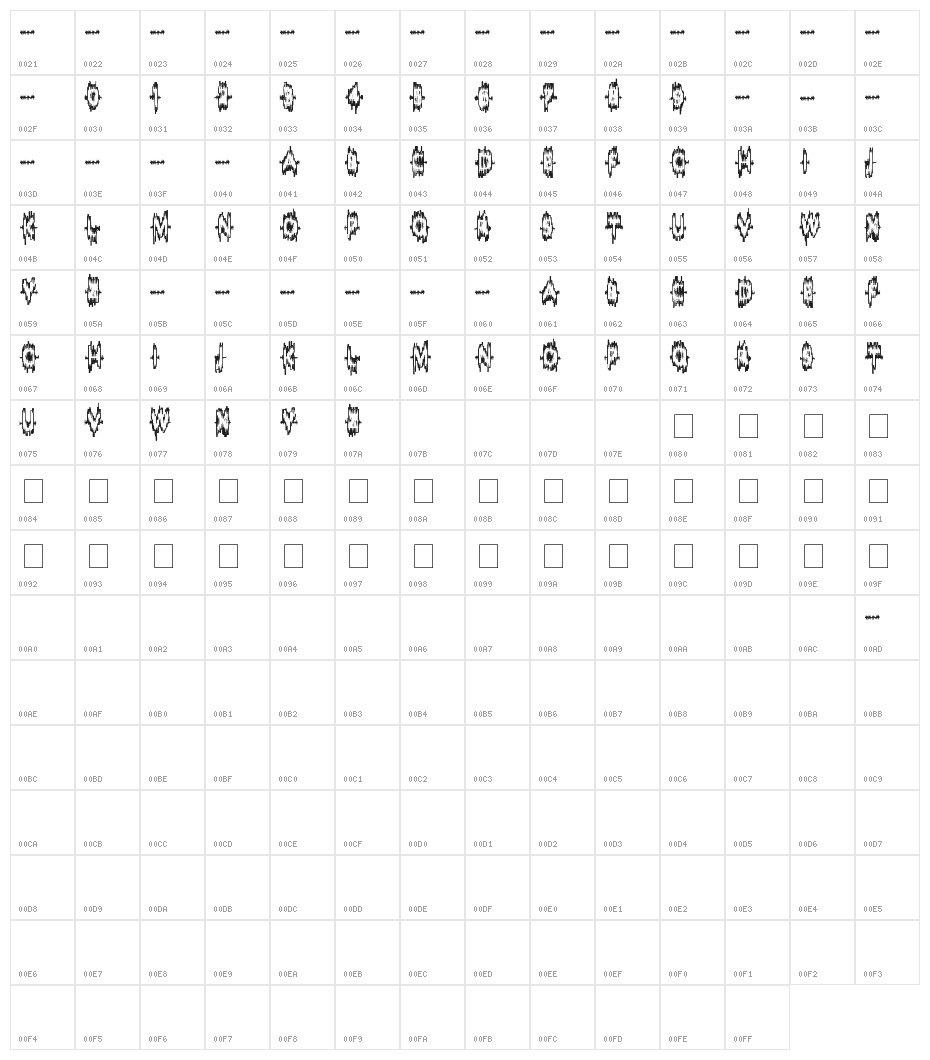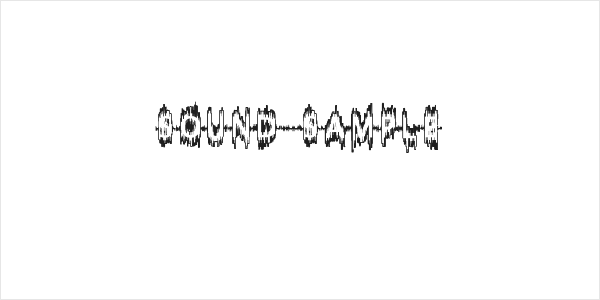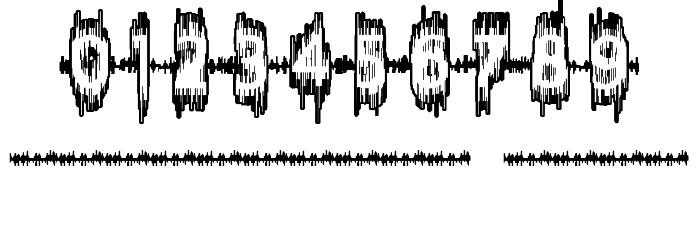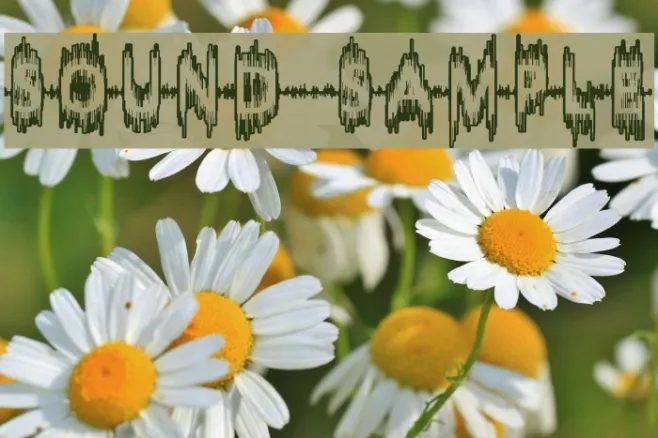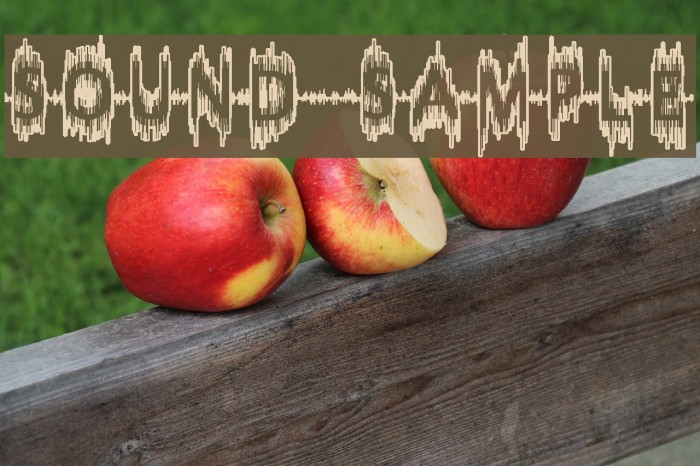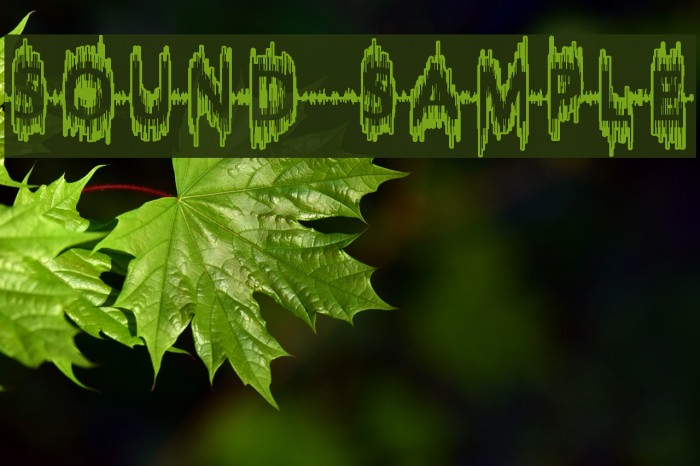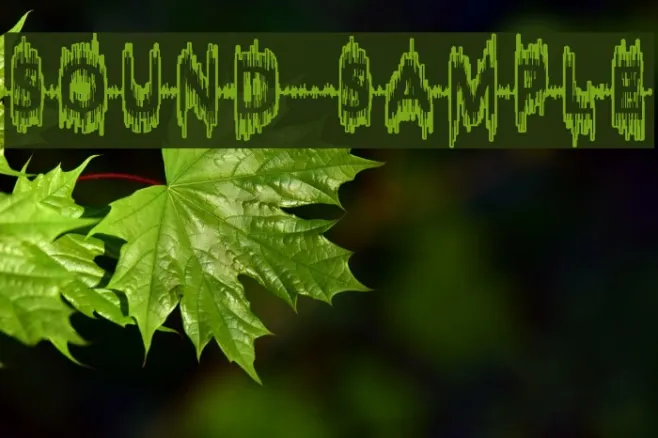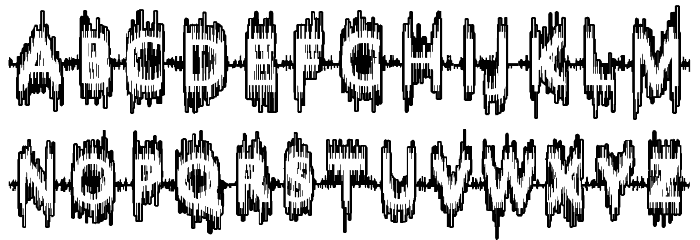
Sound-Sample Font
Sound-Sample Description
This font features a unique design that mimics the appearance of sound waves or audio signals. Each character is crafted with jagged, irregular edges that resemble the peaks and troughs of a waveform. The style is bold and eye-catching, making it ideal for projects that require a modern and edgy aesthetic. The characters are evenly spaced, providing a consistent look across text. This font is particularly suited for creative projects that aim to convey themes of music, sound, or technology. Its distinctive appearance makes it a great choice for headlines, posters, and other display purposes.
| Proposed Projects | Ideal for music-related designs, event posters, album covers, and tech-themed branding. |